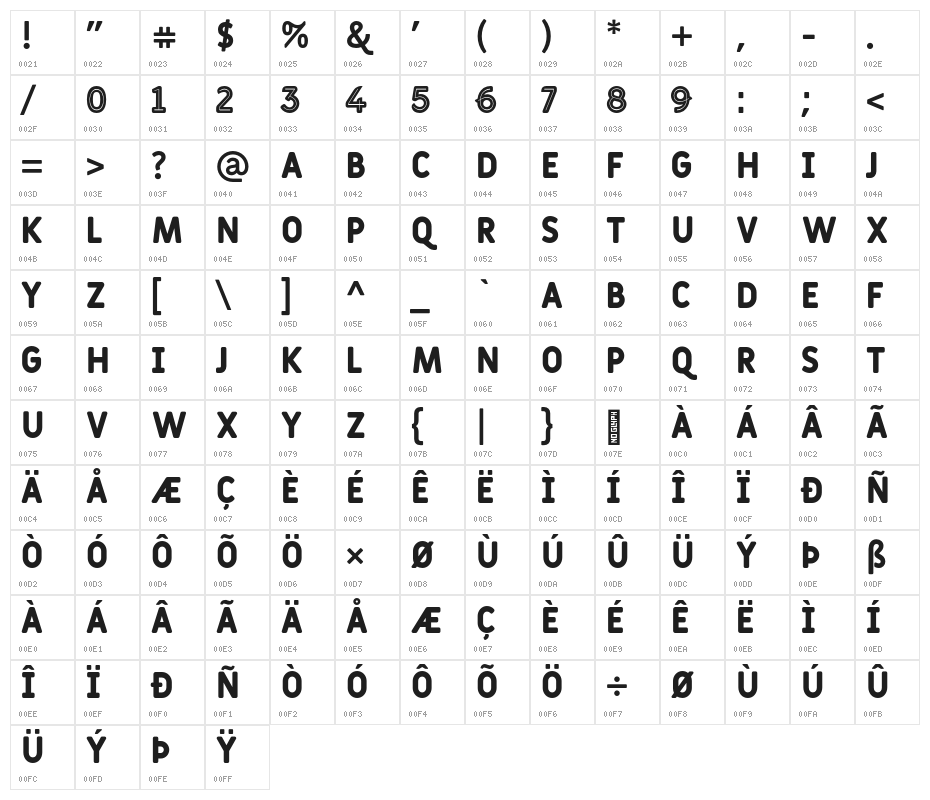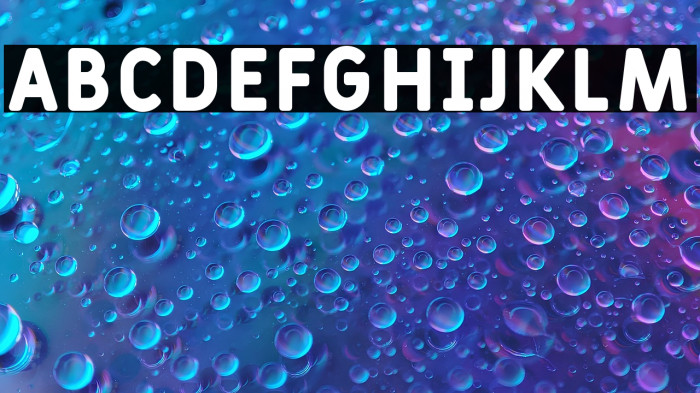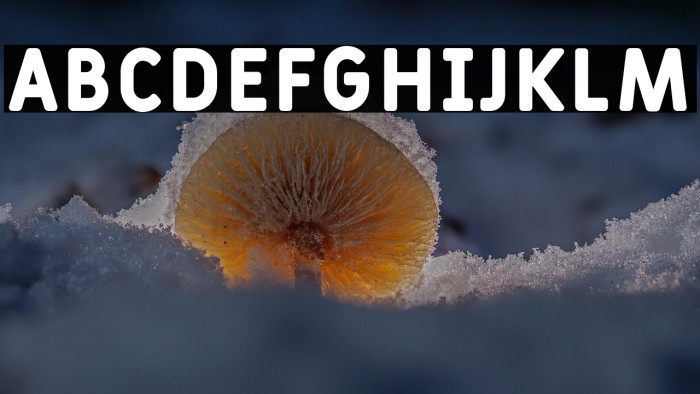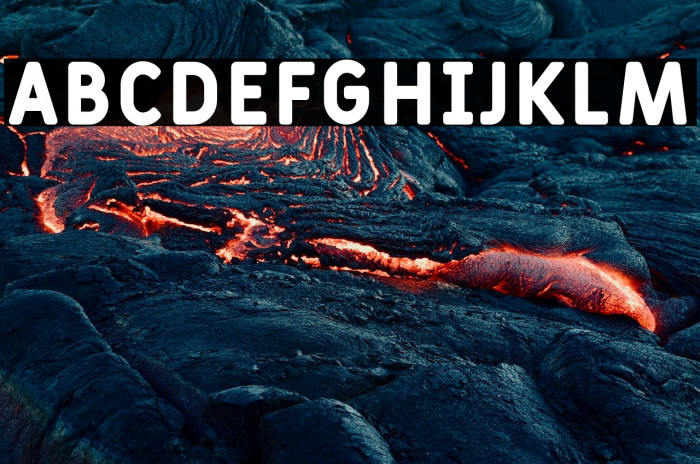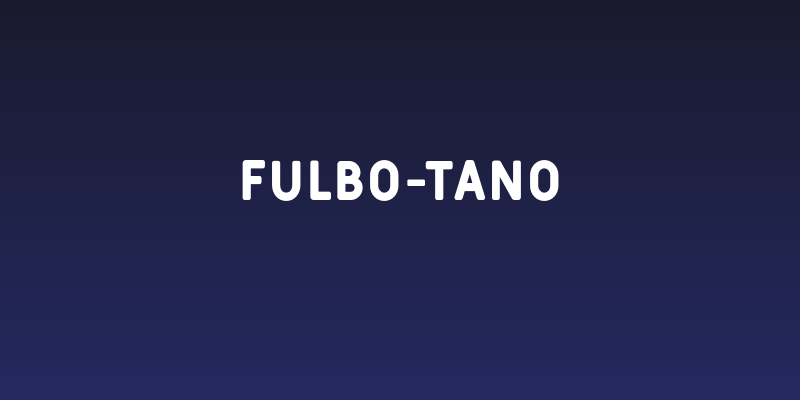
Fulbo-Tano Font
Fulbo-Tano Description
This font features bold, rounded characters with a modern and friendly appearance. The uppercase letters are uniform in height, providing a clean and structured look. The numerals are distinct and easy to read, with a consistent stroke width that enhances legibility. Special characters are well-integrated, maintaining the font's cohesive style. The overall design is approachable and versatile, suitable for a variety of applications where clarity and warmth are desired.
Use CaseHeadlines, Logos, Branding
Proposed ProjectsIdeal for branding, signage, packaging, and digital media where a welcoming and clear typeface is needed.